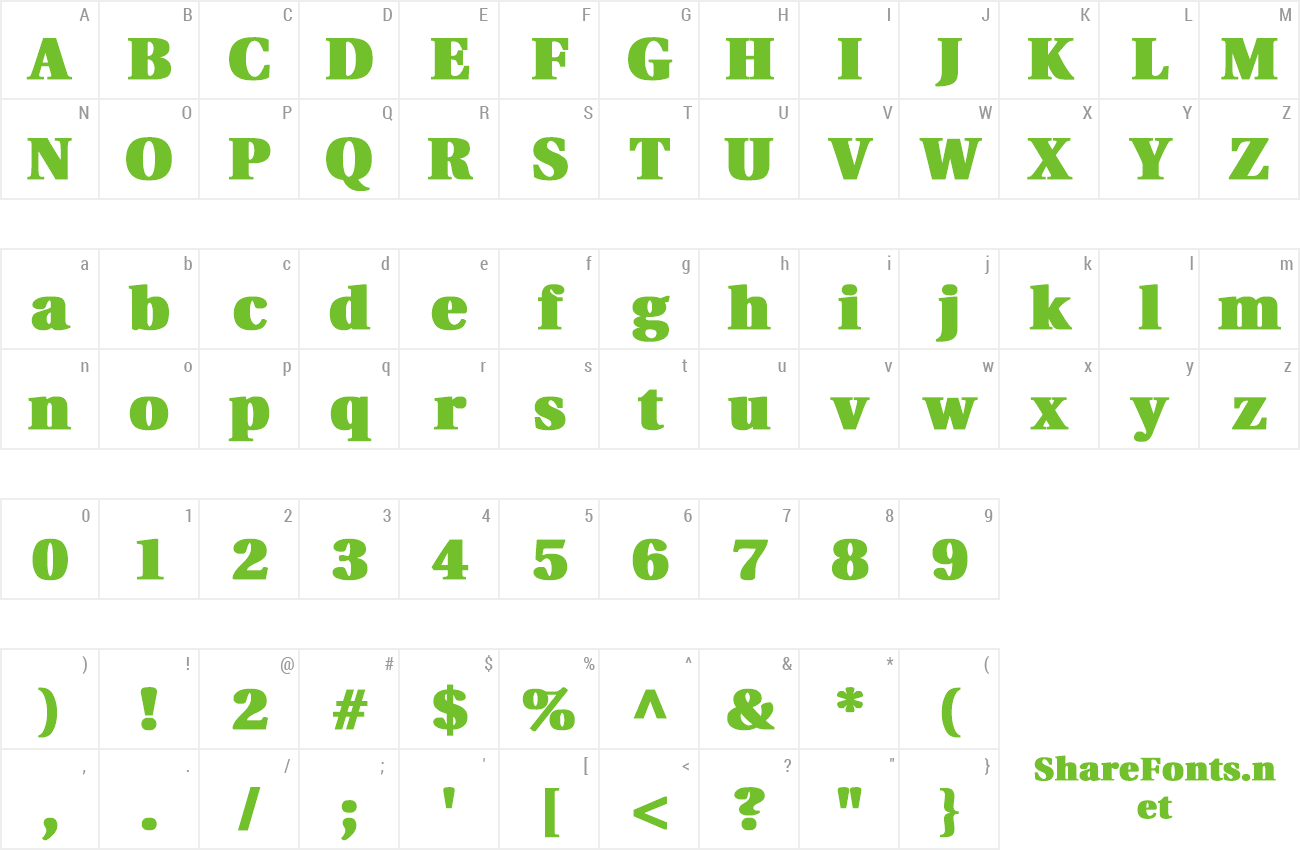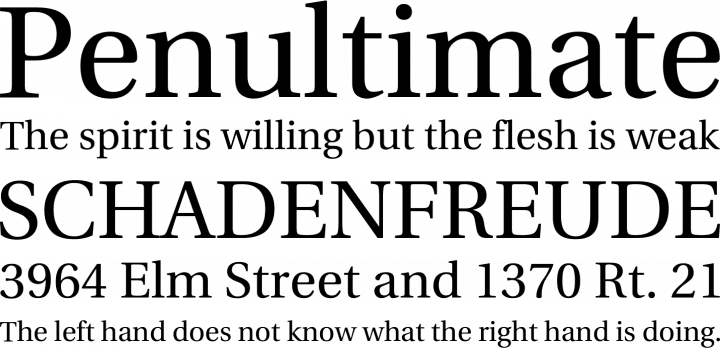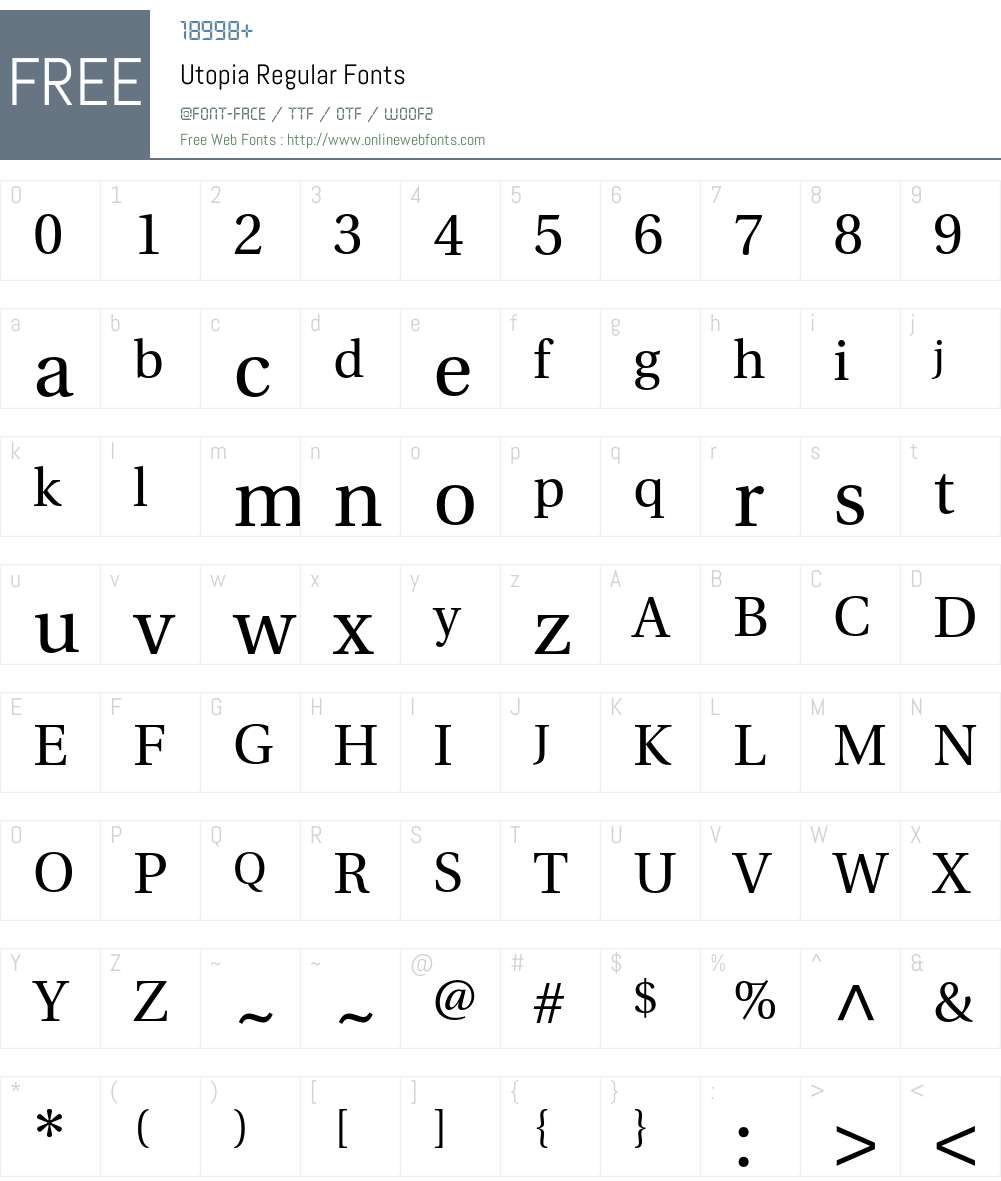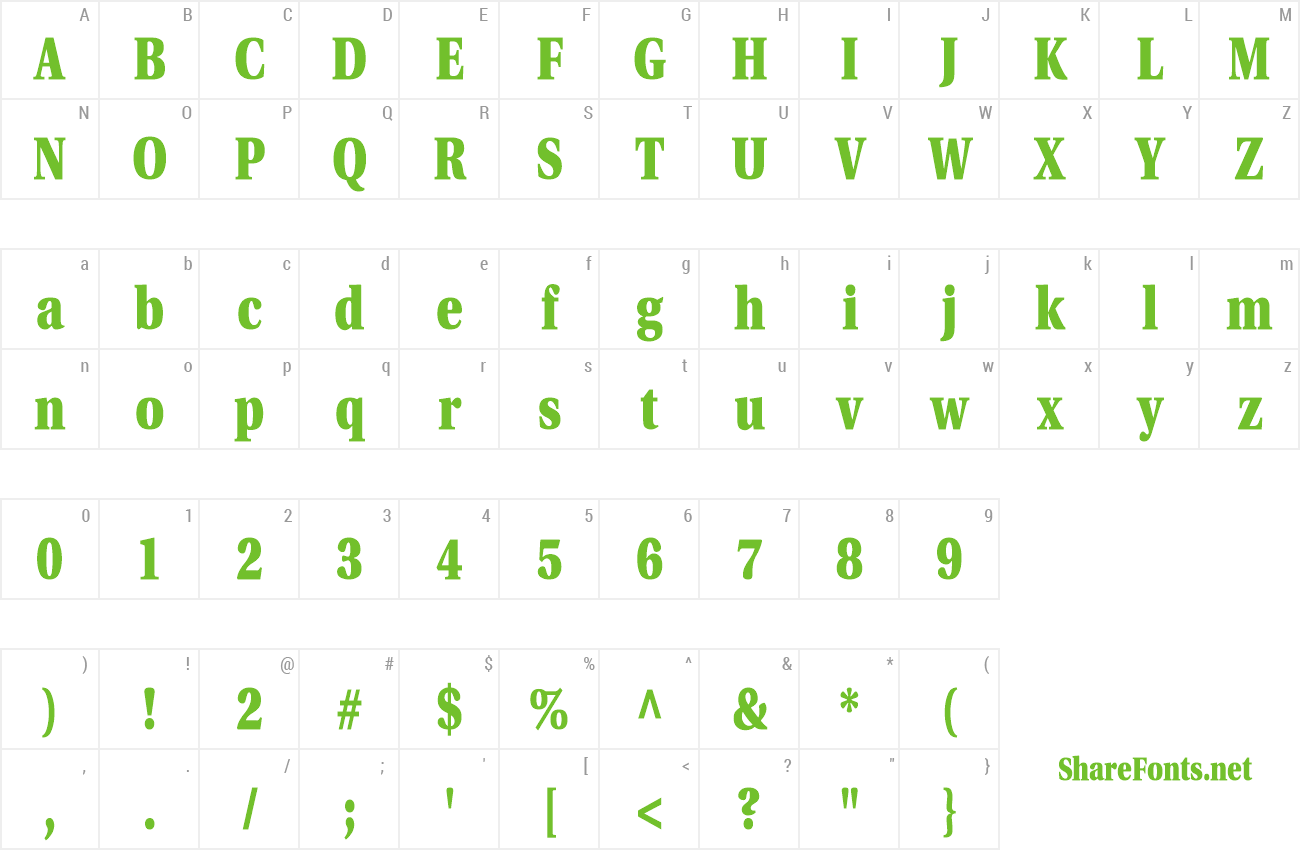
Adobes release notes cite baskerville and walbaum as influences and adobes sumner stone has also compared it to hermann zapfs melior.
Utopia 20 reviews categories various dingbats font unicode files. The adobe originals program started in 1989 as an in house type foundry at adobe brought together to create original typefaces of exemplary design quality technical. Explore utopia designed by robert slimbach at adobe fonts.
One based on 18th and early 19th century ideals of classical design. Utopia regular viewed 43998 times so far. It combines the vertical stress and pronounced stroke contrast of eighteenth century transitional types like baskerville and walbaum with contemporary innovations in character shapes and stroke details.